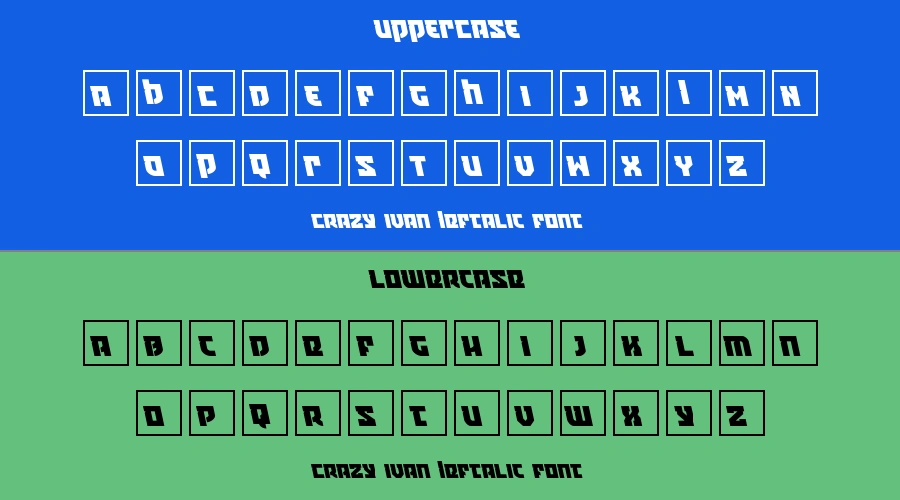
About Crazy Ivan Leftalic Font
Designed with precision, Crazy Ivan Leftalic Font merges decorative elements with design harmony in every character. This versatility makes it particularly effective for ceremonial invitations, where precision and manufacturing quality directly impact communication quality. Each letterform demonstrates meticulous craftsmanship.
Technical excellence shines through elements like ball terminals and currency signs, enhancing typographic versatility. In ceremonial texts settings, Crazy Ivan Leftalic Font proves its worth through superior large format rendering. The thoughtful execution of curve radius and contemporary relevance ensures professional results.